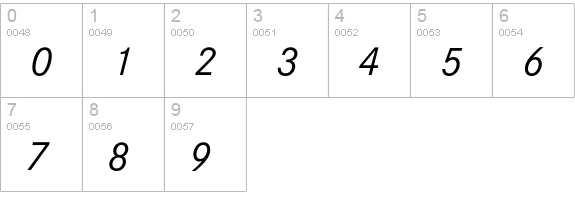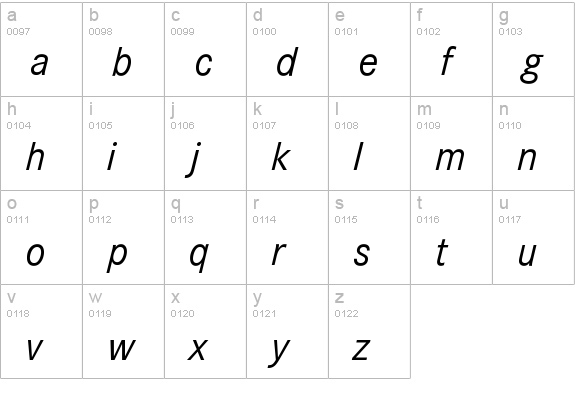
Corporate S BQ Italic is a distinctive, italic variant in the Corporate typeface family \xE2\x80\x94 well suited to design and typography projects.
Corporate S BQ Italic font is a sleek and professional typeface that exudes sophistication and elegance. With its slanted design and clean lines, this font is perfect for adding a touch of modernity to any project. Whether you're creating a business presentation, designing a website, or crafting a marketing campaign, Corporate S BQ Italic font will elevate your work to a whole new level. The best part? This stunning font is available for free download at FontsMarket.com. That's right, you can easily access and use Corporate S BQ Italic font without any cost. So why wait? Enhance your designs with this versatile and stylish typeface today!